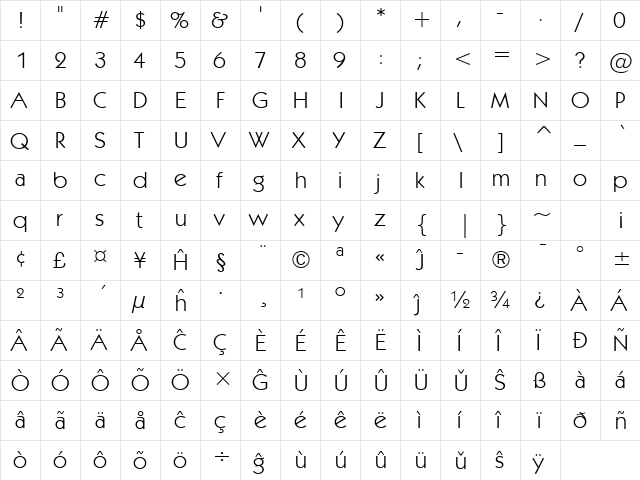
Kabel Bk BT Eo Book Font Preview
Kabel Bk BT Eo Book
Kabel Bk BT Eo Book Font Details
Design Context for Kabel Bk BT Eo Typeface
Kabel Bk BT Eo offers clean, dependable letterforms without strong stylistic allegiance, making it a practical choice for designers who need flexibility.
Pro Tip: Use Kabel Bk BT Eo in both headline and body roles to test its range before committing to a single application.